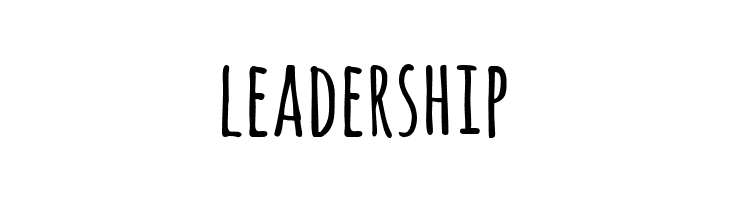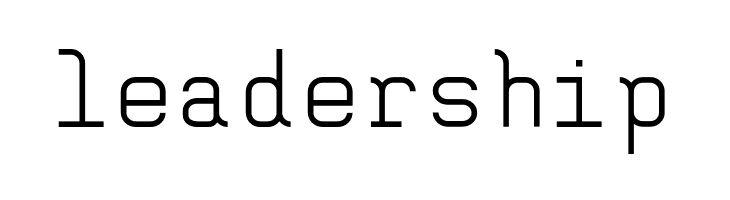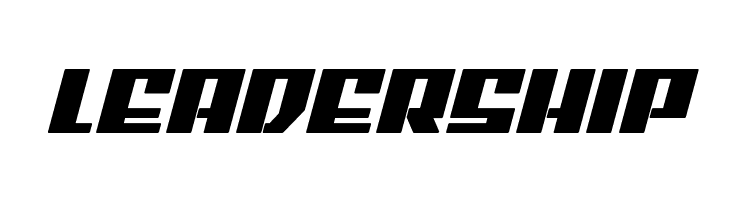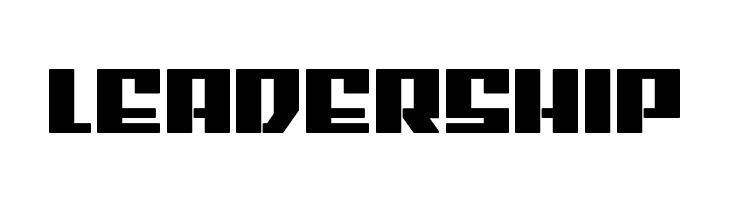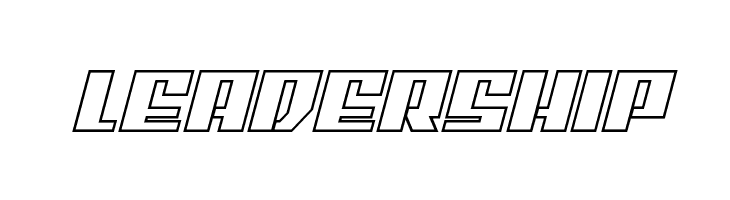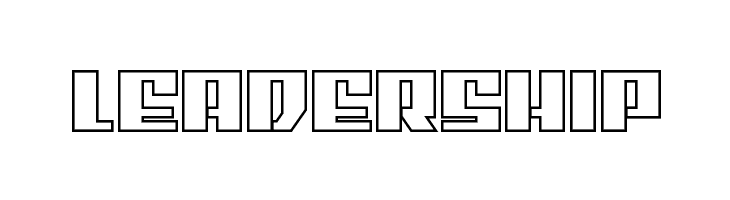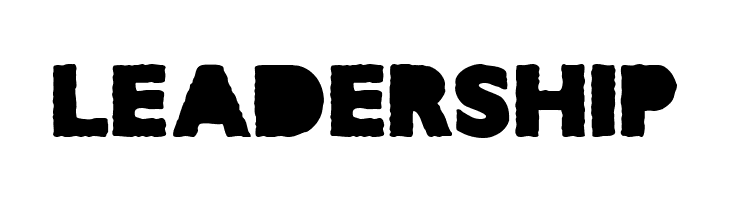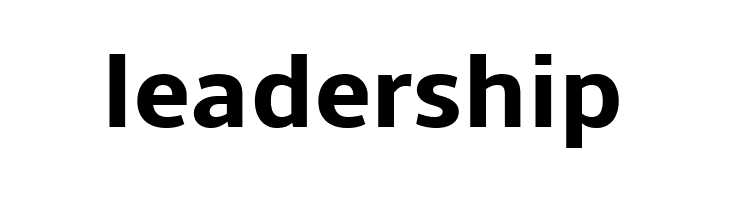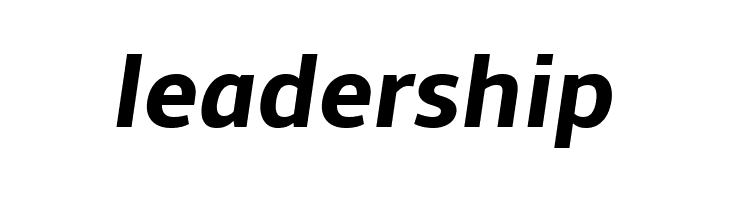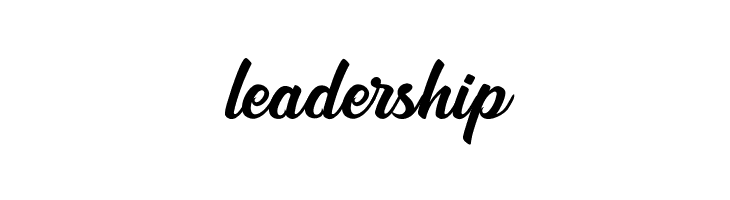
A modern, monospaced font with a clean and precise design.
A bold, modern font with thick strokes and a strong presence.
A bold, oblique font with a modern and assertive style.
A bold serif font with strong, authoritative strokes and classic elegance.
A dynamic and flowing script font with elegant cursive letterforms.
A bold, modern sans-serif font with a friendly and approachable style.
A bold and italic font with a modern, dynamic style.
A playful, hand-drawn font with tall, narrow letters and a casual feel.
A playful, handwritten font with tall, narrow letters and a bold, casual style.
A playful, hand-drawn font with tall, narrow letterforms and a casual style.
A playful, handwritten-style font with tall, narrow characters and a casual feel.
A bold slab serif font with strong, block-like serifs and a modern yet classic style.
Bold, italic slab serif font with strong, dynamic strokes.
Bold slab serif font with unique inline detailing.
A modern, playful font with rounded characters and consistent stroke width.
A bold, italic script font with smooth, interconnected characters.
A bold, whimsical font with flowing, curvaceous lines and playful energy.
A bold, italic script font with elegant curves and a flowing style.
A bold, decorative font with intricate patterns and strong visibility.
A bold serif font with a classic and commanding presence.
A bold, playful font with rounded, smooth characters and a dynamic slant.
A bold, modern sans-serif font with excellent legibility and balance.
A bold, decorative font with high contrast and artistic flair.
A bold, geometric font with strong, angular lines and a modern industrial feel.
A bold, italicized font with angular, dynamic characters and a modern style.
A bold, outlined, italic font with a geometric and modern style.
A bold, geometric outline font with a modern, industrial feel.